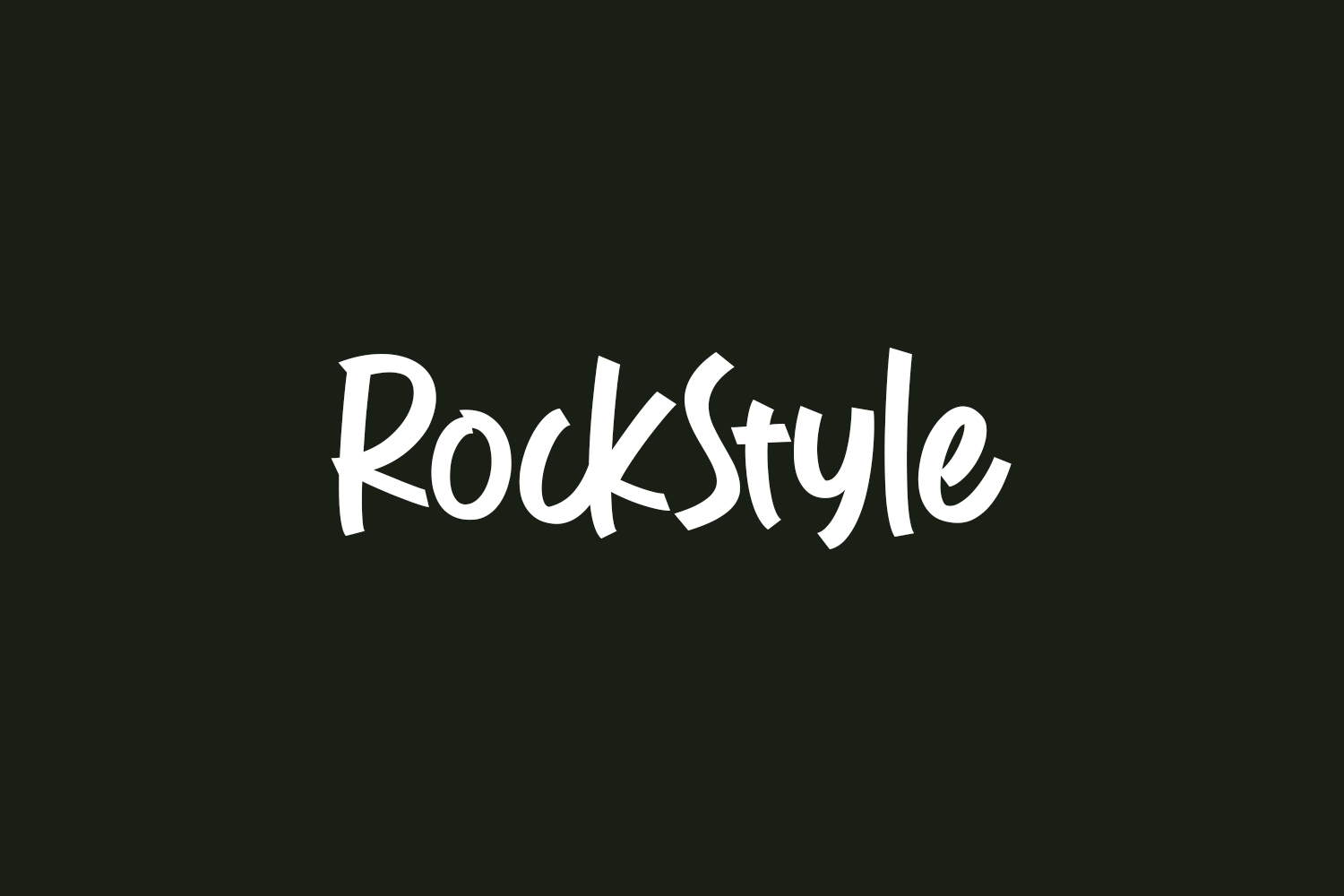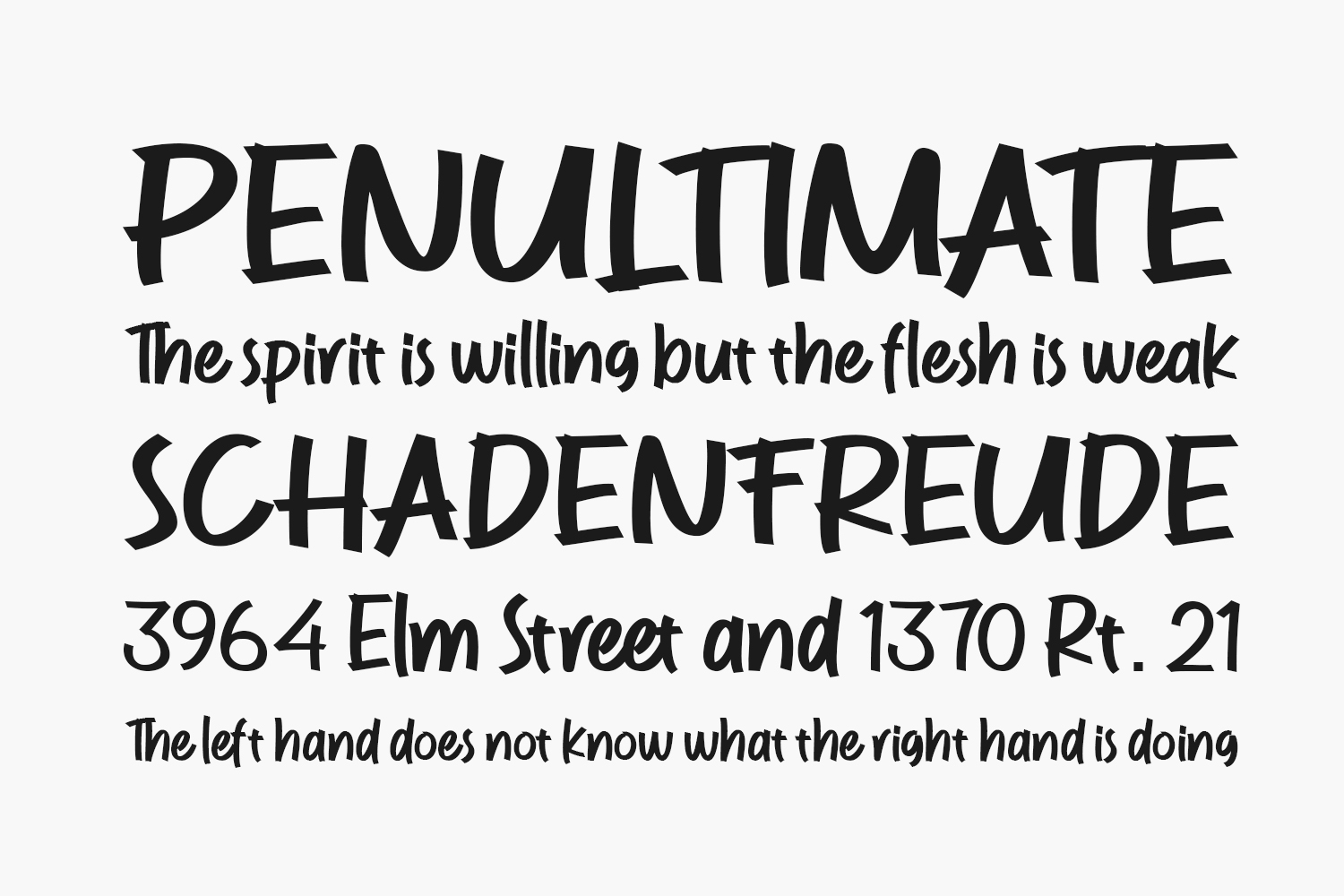
RockStyle Free Font is a readable, down to earth, and bold handwritten font, crafted to give your headlines and logotype projects a cool touch. This font reads as strong, confident, and dynamic and can add tons of nostalgic character to your designs. RockStyle Free Font was designed by Creativework69 Studio and is free for personal use only. Please purchase the full version for commercial use.